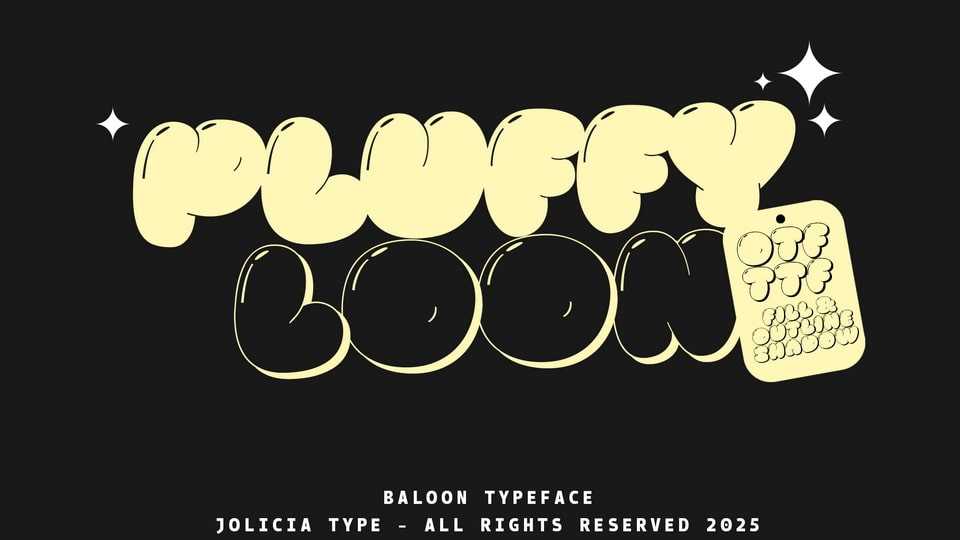
Download Pluffy Loon font, a bold, playful balloon-style typeface that’s full of life and imagination with each letter is crafted to look like an inflated balloon.